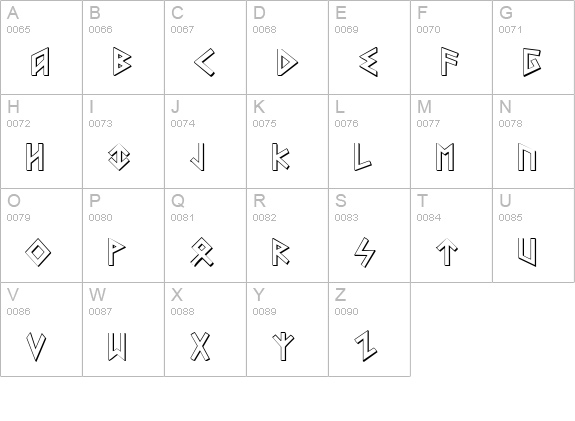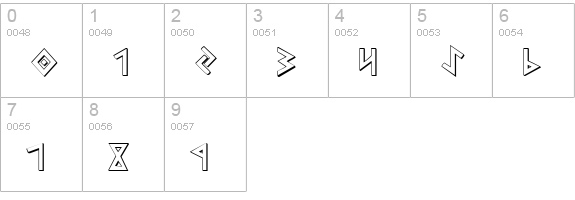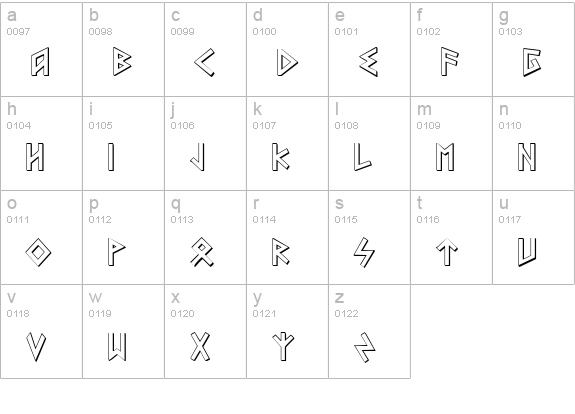
Heorot Shadow Font Details
Heorot Shadow font is a bold and dynamic typeface that exudes a sense of mystery and intrigue. Its unique design features sharp edges and a shadow effect, giving it a striking appearance that is perfect for adding a touch of drama to your projects. Whether you're working on a poster, logo, or website design, Heorot Shadow font will make a bold statement. The best part? Heorot Shadow font is available for free download at FontsMarket.com. This means you can easily add this eye-catching font to your collection without breaking the bank. Don't miss out on the opportunity to enhance your designs with the captivating style of Heorot Shadow font. Download it today and let your creativity shine!